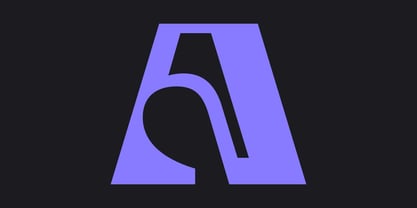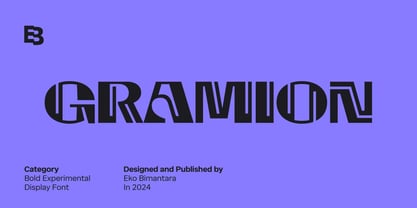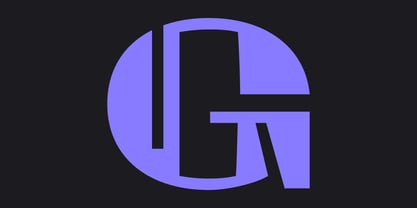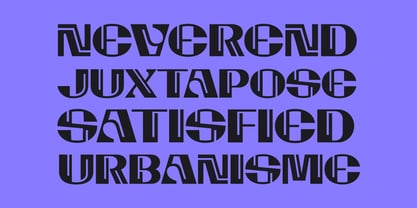
Gramion
por Eko Bimantara
La familia tipográfica Gramion fue diseñada por Eko Bimantara y publicada por Eko Bimantara. Gramion contiene 1 estilos. Más información sobre esta familia
Gramion is an all-caps experimental display font with bold, decorative characters that blend art deco and futuristic styles. Its unique and explorative forms make it perfect for projects requiring a modern, classic, or futuristic touch. Ideal for branding, titles, products, and posters, Gramion is well-suited for large-size displays and headers. Its versatility extends across various layout designs, websites, brand identities, product packaging, and broad graphic design and creative purposes, adding a striking, distinctive element to any project.
Eko Bimantara is a type designer from Indonesia. Always has an intention to creating fonts that not only look great but also perform across a wide range of mediums and also across wide range of theme. The goal is to give designers the tools to make their projects that speaks a lot with various expression. Eko Bimantara’s fonts are featured in everything from corporate identities to street art posters, and have numerous ideas and concept ready to expand for fresh fonts for years further.